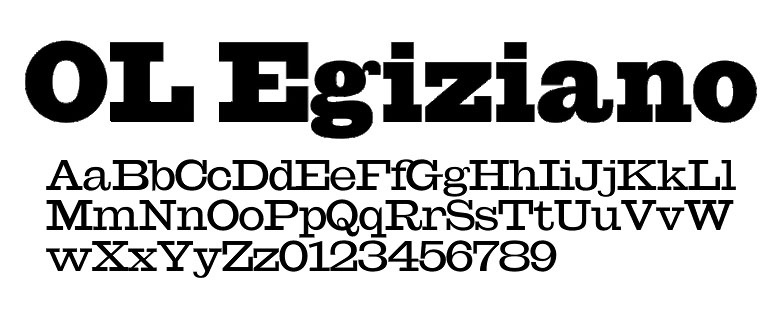
OL Egiziano Font
OL Egiziano Font is perfect for museum exhibitions, ancient history publications, archaeological documentation, historical textbooks, cultural heritage branding, antique shop signage, vintage book covers, classical architecture presentations, luxury heritage brands, traditional craftsmanship materials, historical documentary graphics, and scholarly projects that require timeless, classical typography with ancient Egyptian inspiration.
What makes OL Egiziano Font so exciting is its magnificent fusion of ancient Egyptian hieroglyphic elegance with modern typographic sophistication that bridges millennia of design evolution. This typeface features distinctive letterforms inspired by classical Egyptian stonework and papyrus inscriptions, creating an immediate sense of historical gravitas and cultural authenticity. The font's majestic character and scholarly appeal make it perfect for projects that want to communicate timeless wisdom, cultural heritage, and the enduring legacy of ancient civilizations.
OL Egiziano Font typically comes in multiple weights and styles including Light, Regular, Medium, Bold, and Black variations. Many versions also include classical ornaments, hieroglyphic-inspired decorative elements, and extended character sets that enhance the font's historical authenticity and provide designers with comprehensive tools for creating culturally rich, academically credible typography compositions.
Whether you're designing educational materials, cultural exhibitions, or heritage brand identity, OL Egiziano Font delivers exceptional dignity and authenticity that connects with audiences who appreciate historical depth and cultural sophistication. Its classical proportions work beautifully in both academic publications and contemporary applications, maintaining its distinctive Egyptian-inspired personality across diverse design contexts.
The masterfully crafted letterforms of OL Egiziano Font demonstrate deep respect for ancient Egyptian artistic traditions while meeting the demanding standards of modern typography. Each character has been carefully designed to honor the monumental legacy of Egyptian scribes and stonecutters while ensuring excellent readability and professional functionality for contemporary scholarly and cultural communications.